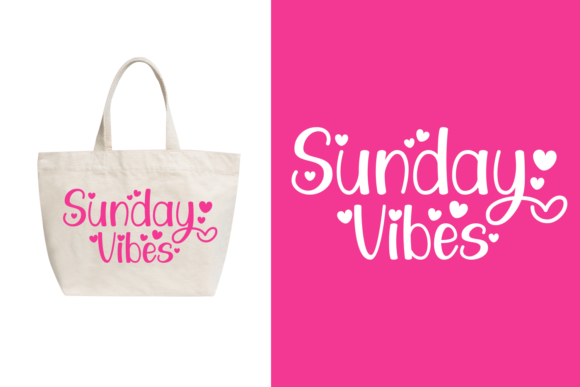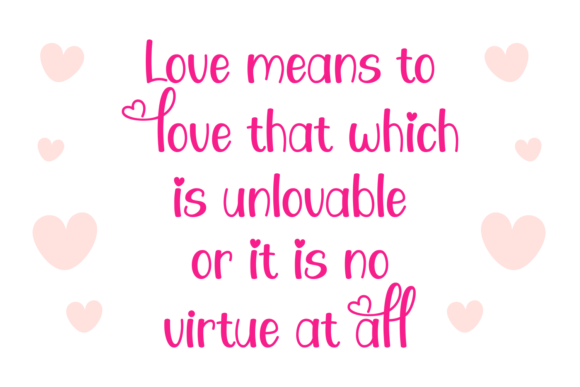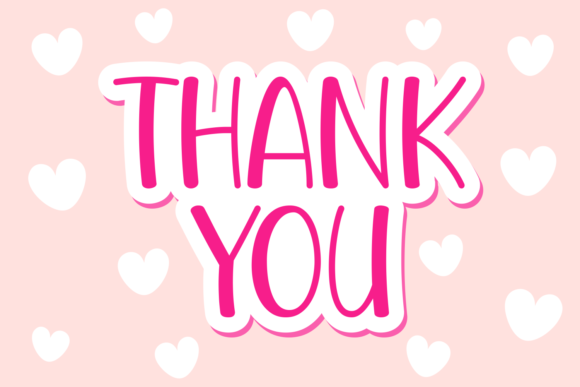
Introduction to Jevelyn Font
As I sat at my desk, staring at a blank canvas, I couldn’t help but feel the weight of my next creative project. I had an idea, but I needed the perfect font to bring it to life. That’s when I stumbled upon the Jevelyn Font, and everything changed. Its playful, handwritten style instantly captured my imagination, and I knew I had found the perfect match.
| 📌 Product Name | Jevelyn Font |
| 👤 Author | Rydmaker (7NTypes) |
But what makes Jevelyn Font so special? Not only is it a high-quality design resource that can add a touch of romance and whimsy to any project, but it’s also PUA encoded, making it easy to access all of its amazing glyphs and ligatures. Whether you’re working on a wedding invitation, a children’s book, or a personal blog, Jevelyn Font is the perfect choice for designers who want to add a little extra magic to their work.
Key Features of Jevelyn Font
- Unique, hand-drawn design style perfect for creative projects and design resources.
- High-quality, detailed font with a transparent background, ideal for use in graphic design and digital art.
- Perfect for use in various creative projects, including logos, branding, and typography-based designs.
- Easy to use and customize, with a wide range of applications in graphic design, digital art, and more.
Honest Review: Jevelyn Font
I recently stumbled upon the Jevelyn Font, and I must say it’s been a valuable addition to my design resource library. This elegant script font is perfect for adding a touch of sophistication to any creative project.
- ✨ High-quality design with smooth lines and precise lettering.
- ✨ Beautifully crafted for use with transparent backgrounds, making it ideal for product design and branding.
However, I do have a few gripes:
- ⚠️ Some users may find the font’s complexity overwhelming, especially for beginners.
Overall, I’m thoroughly impressed with the Jevelyn Font. Its high-quality design and free download make it a great choice for designers working on creative projects. While it may have some limitations, I believe the benefits far outweigh the drawbacks.
How to Use Jevelyn Font
Jevelyn Font is a high-quality, free design resource ideal for creative projects. It offers a transparent background and a wide range of styles, making it a versatile addition to any design.
Tips for Getting the Most Out of Jevelyn Font
To get the most out of Jevelyn Font, experiment with different font sizes, colors, and styles to create unique and eye-catching designs.
Jevelyn Font is ideal for use in social media graphics, blog posts, and marketing materials. Its transparent background and high-quality design make it a versatile addition to any creative project.
Can I use Jevelyn Font with a transparent background?
Yes, Jevelyn Font has a transparent background, making it perfect for designs that require a subtle look. You can use it with a transparent background in design software that supports this feature, such as Adobe Creative Cloud or Sketch. This will allow you to create a seamless design with a high-quality font that blends perfectly with your background.